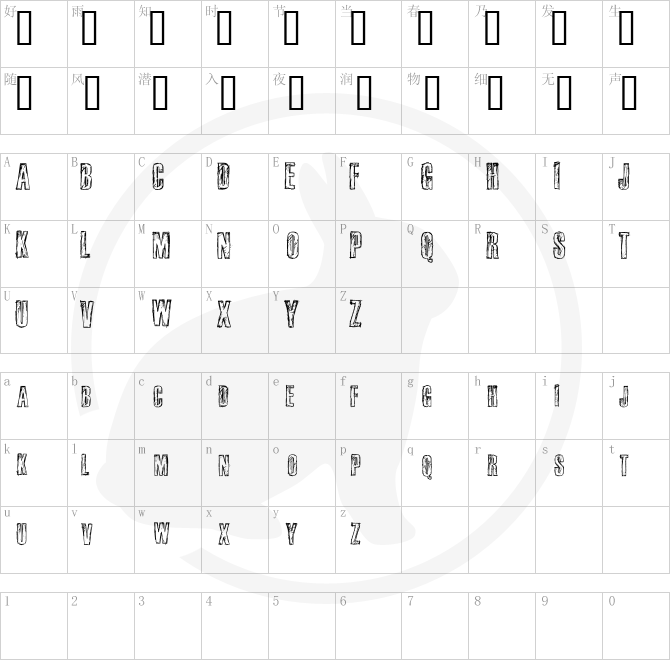
- Font Name:fail
fail.ttf is a very beautiful artistic font, fail.ttf is widely used in the design and printing of various books and pictures,fail.ttf has a strong visual impact,fail.ttf is a commonly used font in newspapers, magazines and books, and is used in posters, e-commerce Poster design, store design, logo design, font design and other fields.fail.